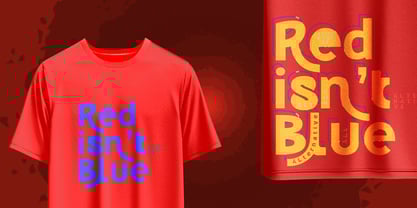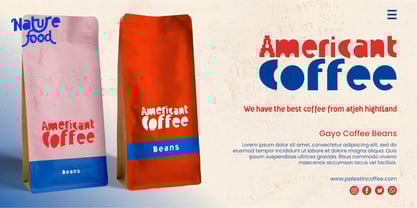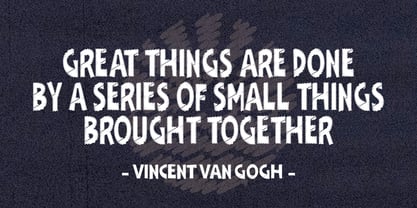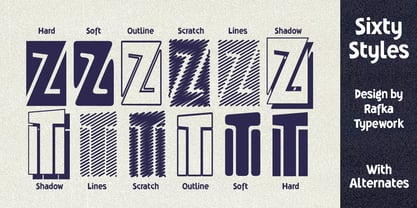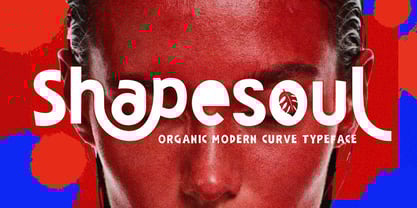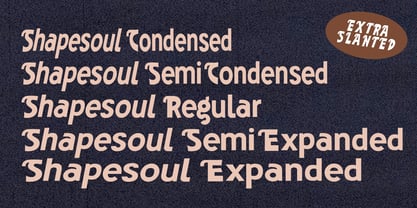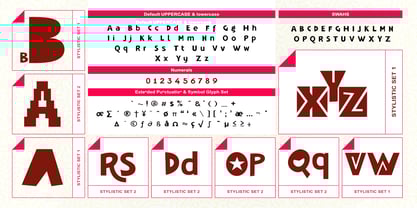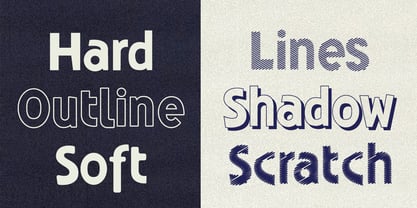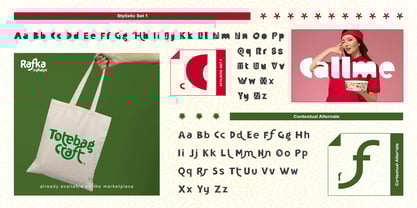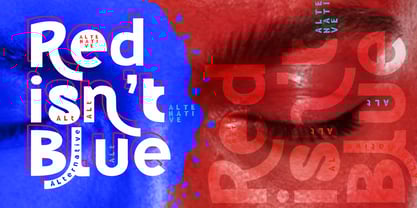
Shapesoul Display
by Rafka Typework
The Shapesoul Display Font Family was designed by Tauris Mustafa and published by Rafka Typework. Shapesoul Display contains 60 styles and family package options.
Shapesoul Display is a modern typeface crafted with an organic curve aesthetic, blending clean contemporary letterforms with smooth, flowing shapes and natural decorative touches. Its carefully refined geometric construction creates a perfect balance between modern minimalism and warm, organic character. Each glyph is designed with bold yet soft contours, resulting in a playful, expressive personality enriched with distinctive stylistic details. This typeface comes equipped with a wide selection of alternates, stylistic sets, and ligatures, giving designers the flexibility to explore various moods, tones, and creative directions. Shapesoul supports extensive multilingual character coverage, making it suitable for global projects. In addition, it includes PUA-encoded glyphs, ensuring easy access to alternates and decorative characters across different design software—whether or not they support advanced OpenType features. Shapesoul is available in 5 widths and 6 distinct styles—Hard, Soft, Outline, Shadow, Lines, and Scratch—offering even more versatility for diverse design needs. With its unique blend of geometry, fluid forms, and a wide stylistic range, Shapesoul is ideal for branding, editorial design, packaging, posters, and any project that seeks a modern yet organic visual identity.
Shapesoul Display